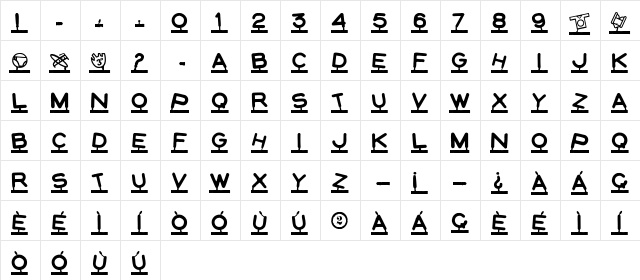
Montaplex Regular
Design Context for Montaplex Typeface
Montaplex is a composed and adaptable typeface that performs quietly and consistently across a wide range of design contexts.